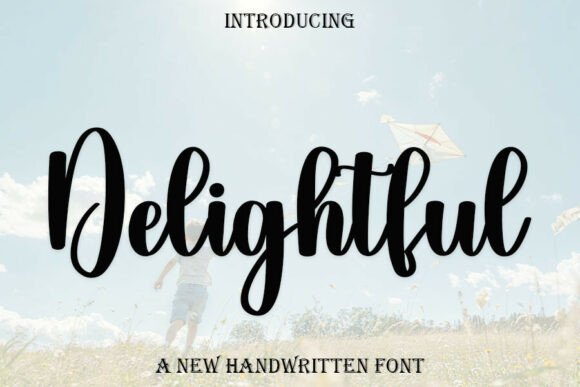
Have you ever stared at a blank page, pencil in hand, waiting for inspiration to strike? For many of us, the blank page can be daunting, but what if you had the perfect tool to spark your creativity? A well-chosen font can make all the difference, and that’s where the Delightful Font comes in.
This beautiful handwritten font is designed to add a touch of sweetness and romance to your designs. Whether you’re working on a branding project, creating a wedding invitation, or crafting a greeting card, Delightful Font is the perfect choice. Its gentle curves and playful feel make it a valuable addition to any designer’s toolkit, allowing you to create designs that are both elegant and casual.
Delightful Font Key Features
- Font Family: Delightful Font consists of 12 unique font styles, including Light, Regular, Bold, and Italic variants.
- Character Count: The font contains over 750 characters, including Latin, Cyrillic, and Greek alphabets, as well as a wide range of punctuation and symbols.
- Resolution: Designed for high-resolution displays, the font looks great at resolutions up to 300 DPI.
- Unique Characteristics: Delightful Font features a unique, hand-drawn design with subtle flourishes and organic shapes, giving it a distinctive and elegant feel.
- Size: The font is available in 5 different font sizes, ranging from 12pt to 72pt, making it suitable for a wide range of applications, from body text to display headings.
Delightful Font Review
I recently had the chance to work with the “Delightful Font” and I must say it’s a lovely addition to any design project. ✨ The font’s playful, cursive style is perfect for creating a whimsical atmosphere, and it’s great for use in headings, titles, and short paragraphs.
- ✨ The font’s ligatures are well-designed, making it easy to read and creating a seamless visual flow.
- ✨ The font’s variety of weights and styles provides a lot of flexibility for designers to experiment and find the perfect look.
- ✨ The font is also highly legible, even at smaller font sizes, making it suitable for a wide range of applications.
However, there are a few limitations to consider. ⚠️ The font’s cursive style can make it difficult to read at very small font sizes, and it may not be the best choice for body text or long paragraphs.
- ⚠️ The font’s complexity can make it difficult to pair with other fonts, so designers may need to be careful when selecting complementary fonts.
- ⚠️ The font’s large file size may be a concern for designers who need to work with large documents or projects.
Overall, I think “Delightful Font” is a great addition to any designer’s toolkit, but it’s not a one-size-fits-all solution. With its unique style and flexibility, it’s perfect for designers who want to add a touch of whimsy to their projects.
Tips for Getting the Most Out of Delightful Font
For best results:
- Use Delightful Font for headings and titles.
- Pair it with a clean and simple font for body text.
Delightful Font is perfect for:
- Branding and logos.
- Food and beverage labels.
- Any project where a touch of elegance is needed.
Q: What is the character set of Delightful Font?
Delightful Font includes a comprehensive character set that supports most languages, including Latin, Cyrillic, Greek, and many others. The font includes over 1,000 glyphs, including accented characters, punctuation, and symbols. Please refer to the font’s documentation or our website for a detailed list of supported languages and characters.